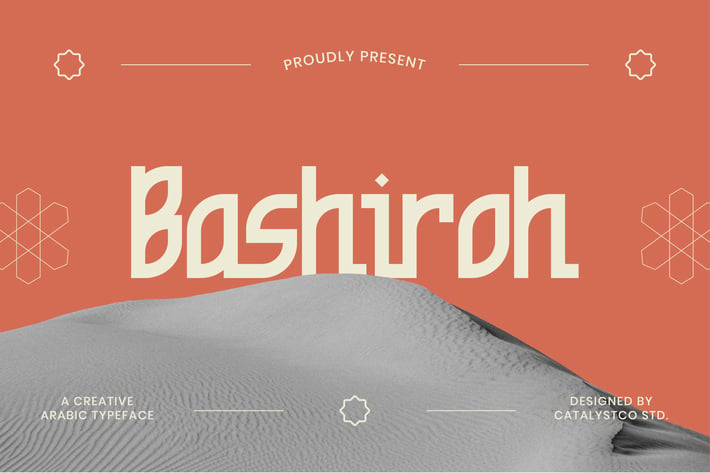
Bashiroh Arabic Typeface
Bashiroh is a creative Arabic-inspired display typeface featuring geometric letterforms, subtle cultural motifs, and a modern condensed structure. Its distinctive cuts and angular shapes give the font a strong visual identity suitable for headline use, bold branding, signage, and editorial layouts. The typeface is crafted with clean vector precision, offering uppercase, lowercase, and multilingual punctuation for versatile design needs. Perfect for projects that seek a fusion of modern aesthetics and Middle-Eastern design sensibilities.
Relevance and Use Cases is perfect for branding projects, cultural event posters, editorial layouts, product packaging, premium logos, signage, museum or historical themes, artistic visuals, and modern creative advertising that requires a distinctive Arabic-influenced display typeface.
Main Features
Ligatures & Alternate
Numeral & Punctuations